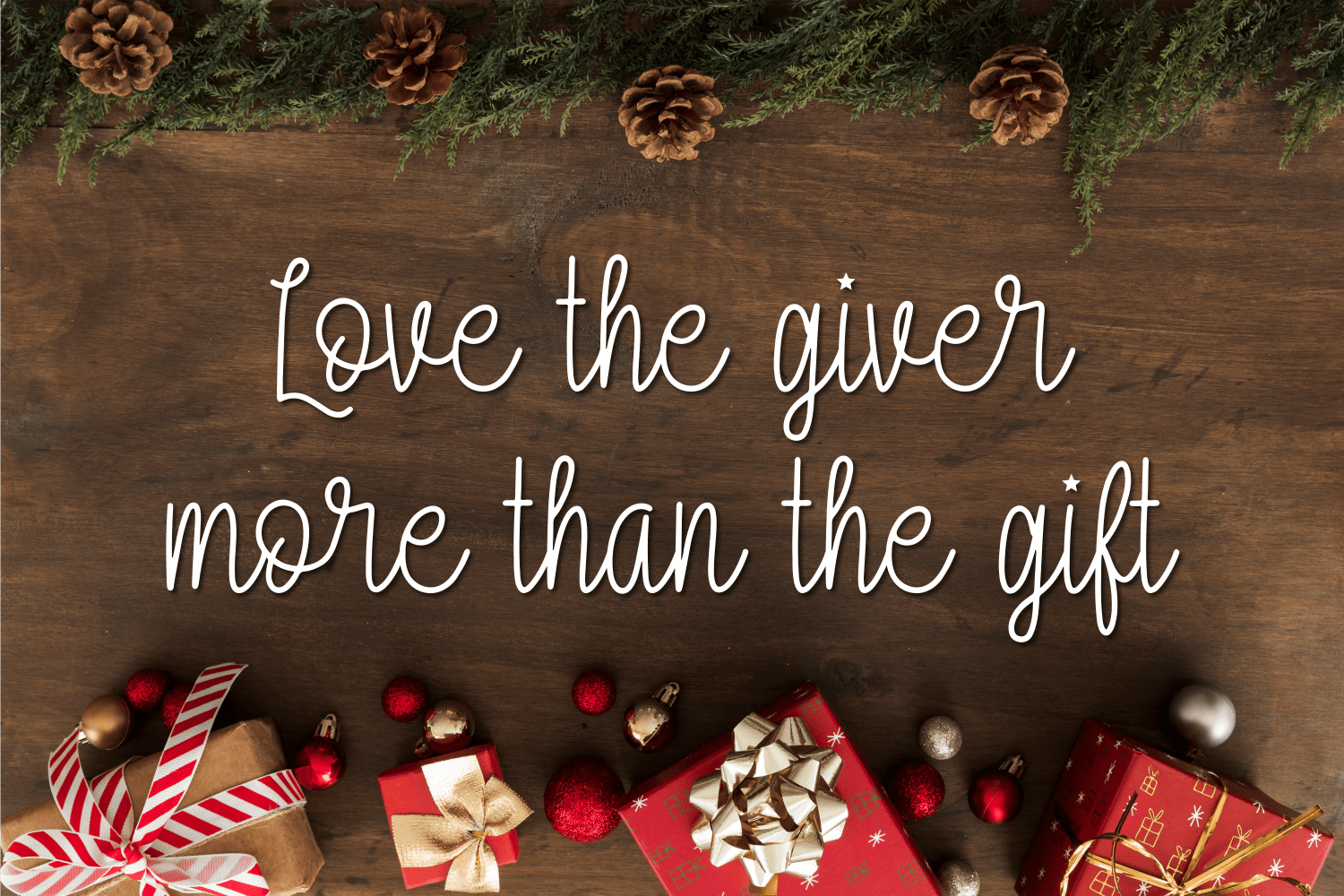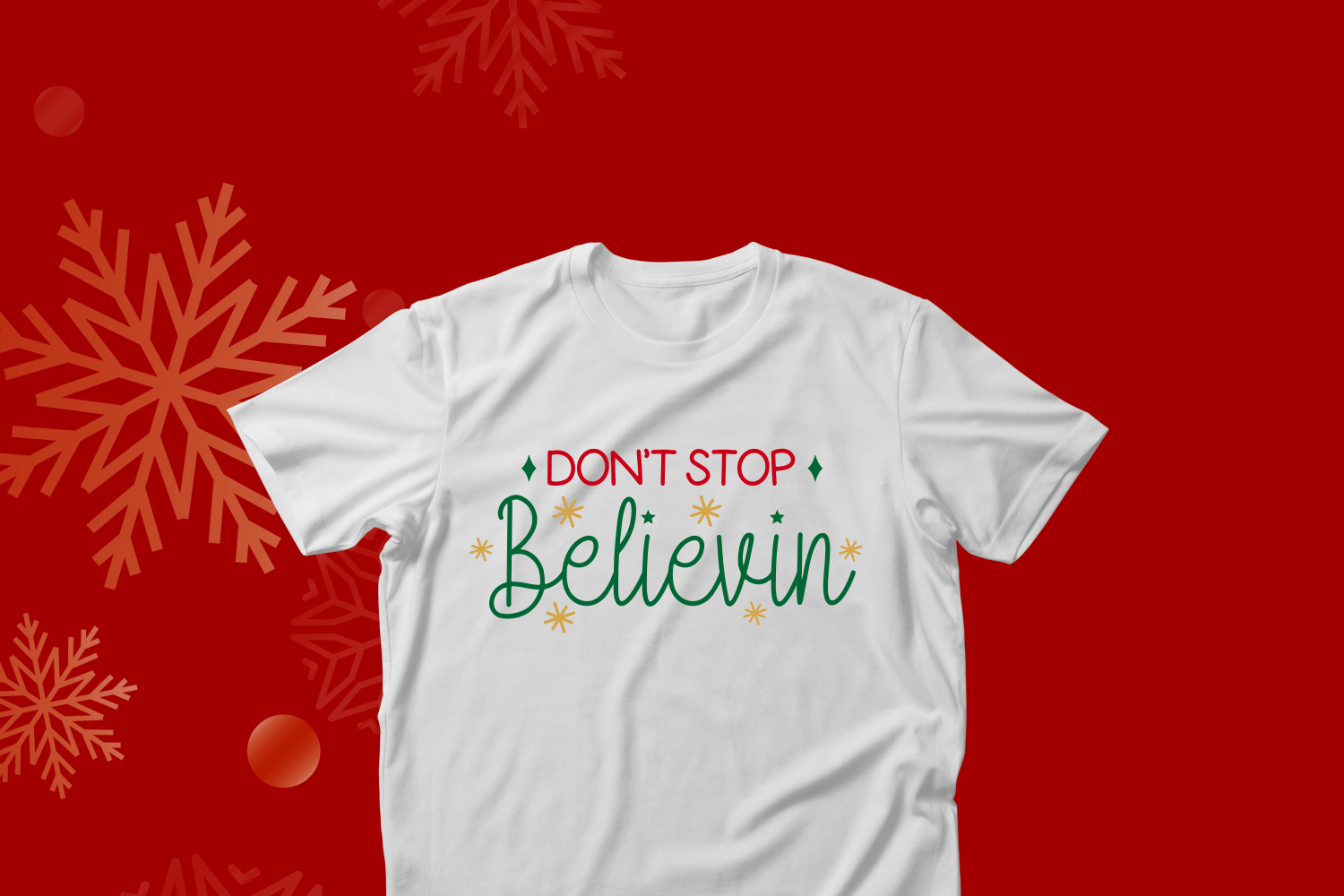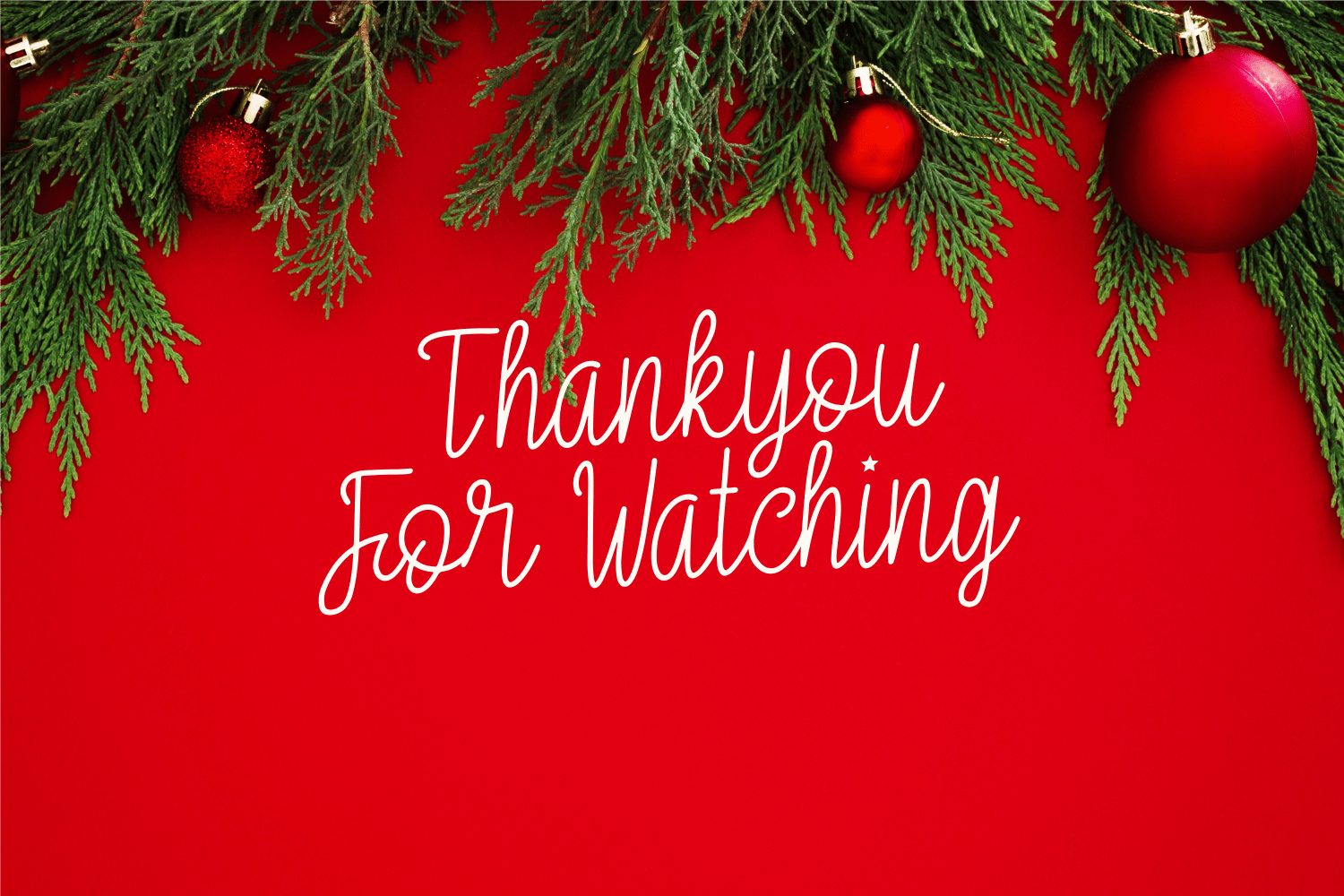
Lemy Butter Font
Lemy Butter Handwritten Font is a lovely and timeless handwritten font. It is the best choice for creating eye catching logos, branding and quotes. Every letter has a unique and beautiful touch, which will make your design come alive!